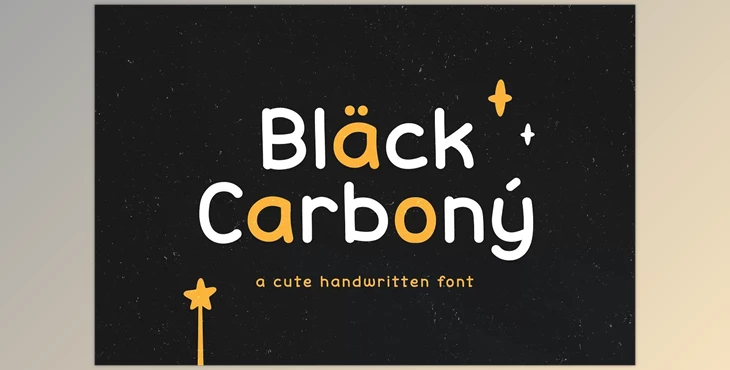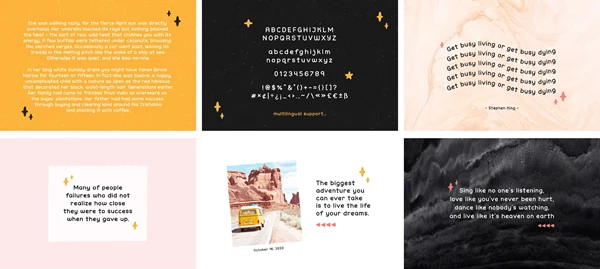
Black Carbony Font CreativeMarket 5915925:
Black Carbony is a sweet and easy hand-written, sparkling sans serif typeface. The font is easy and enjoyable to work with! Black Carbony is perfect for making logos, quotes badges, insignia, packaging, and headlines, posters or t-shirt/apparel, greeting cards birthday invitations birthday cards for babies, baby showers, and much more. This font is great for children as well as school and can be used to support multilingual languages.
What is Black Carbony Font
It sounds like a versatile and playful typeface, perfect for a wide range of design projects. Hand-written fonts like "Black Carbony" often bring a unique and personal touch to creative work, making them popular choices for various design applications.
The fact that it can be used for logos, quotes, packaging, headlines, and more demonstrates its flexibility and suitability for both digital and print design. Additionally, the support for multiple languages makes it even more versatile and accessible to a global audience.